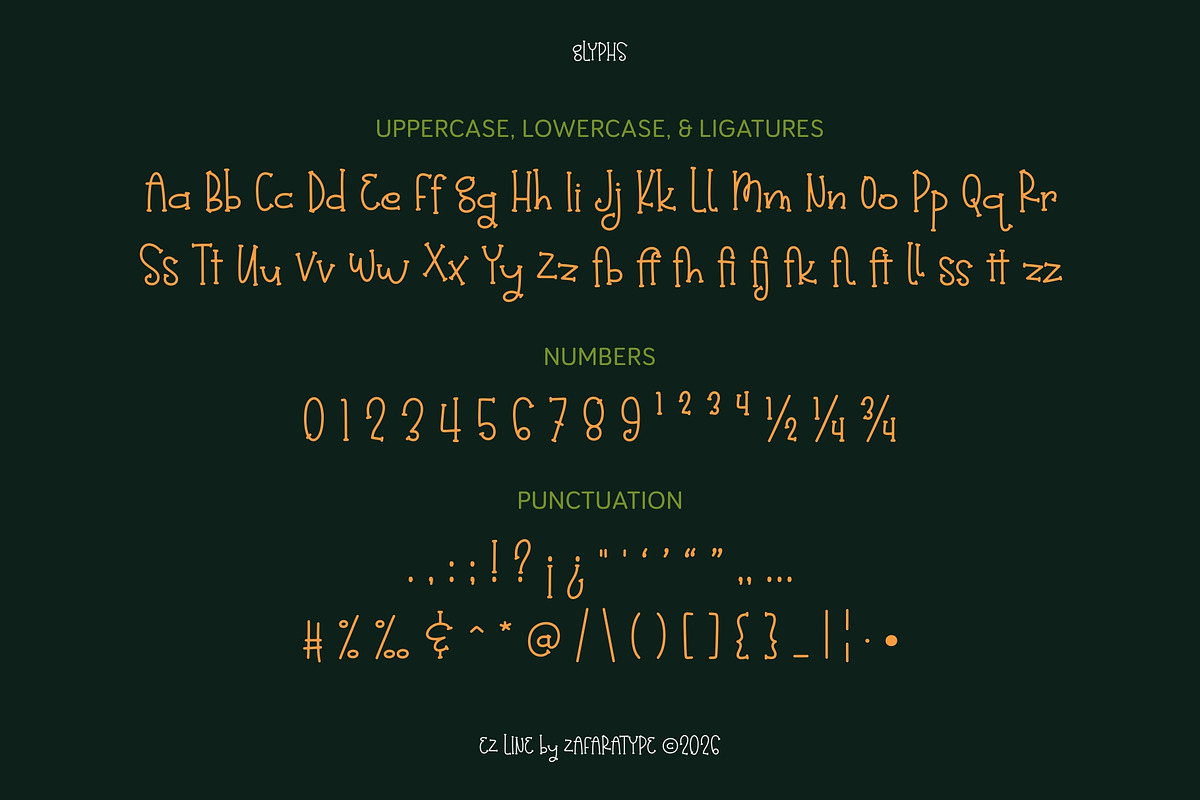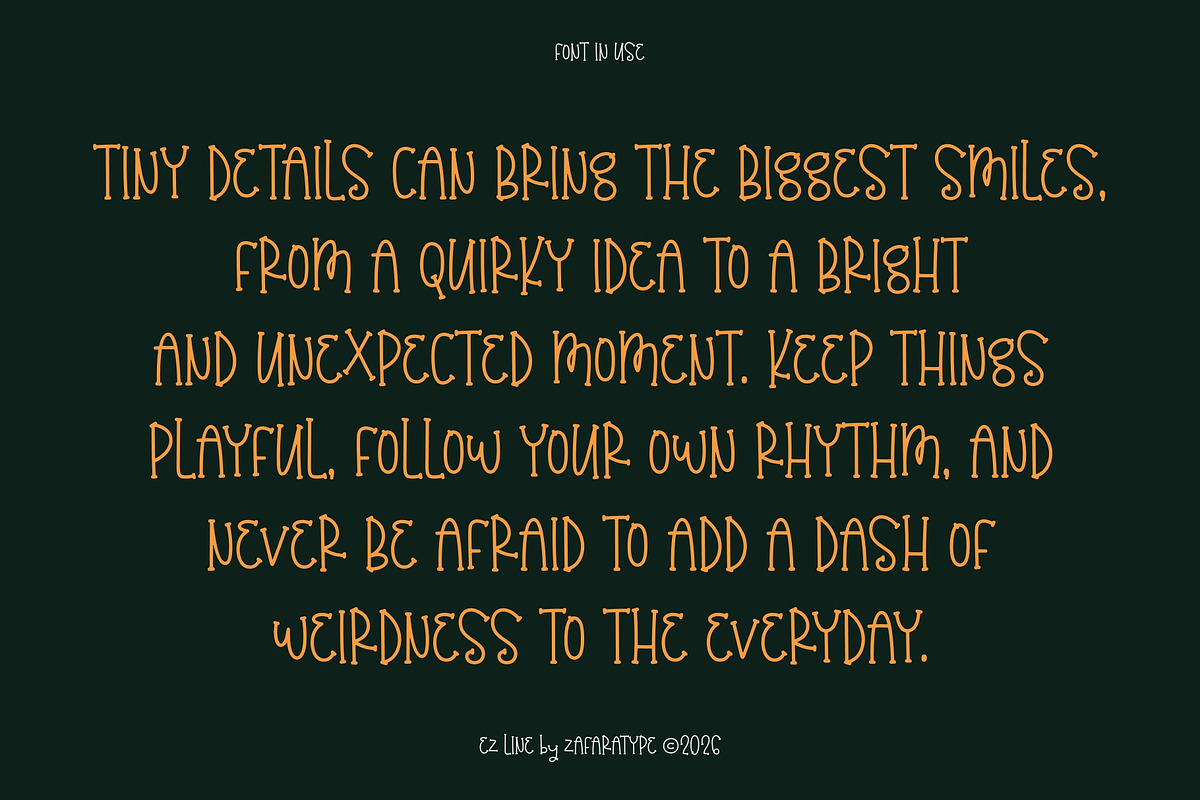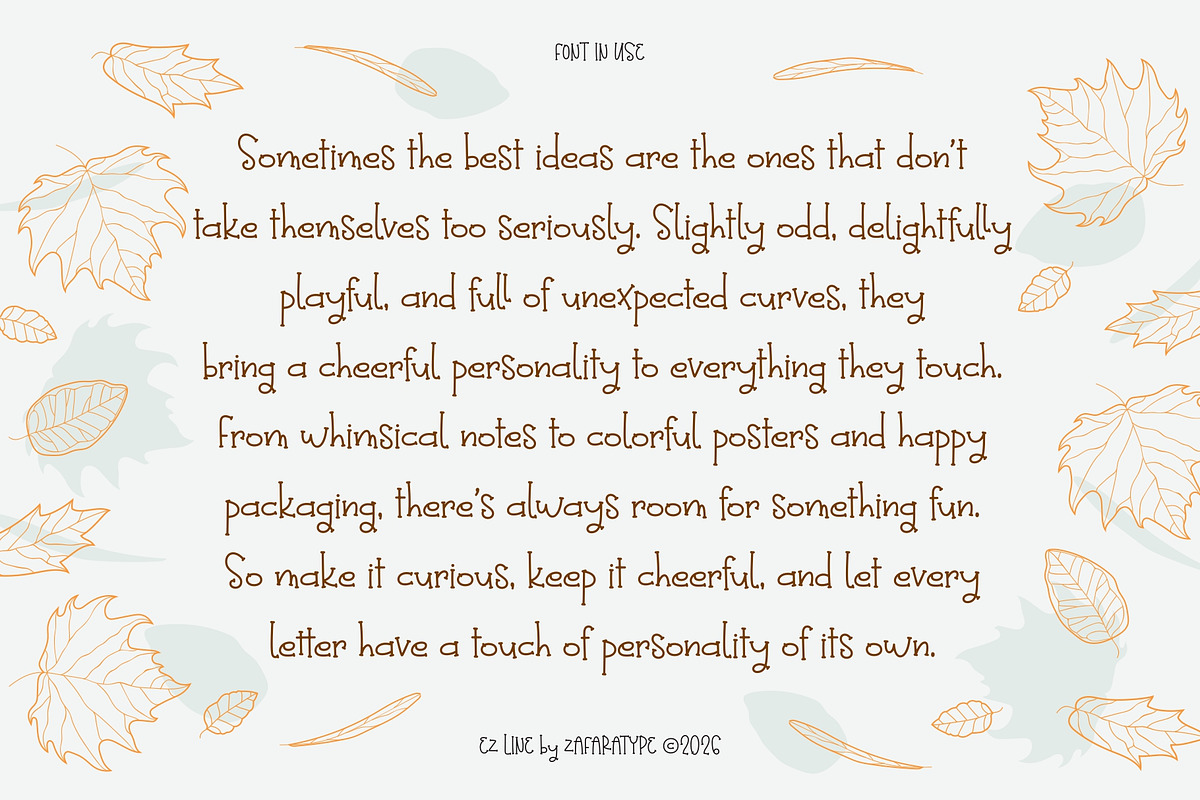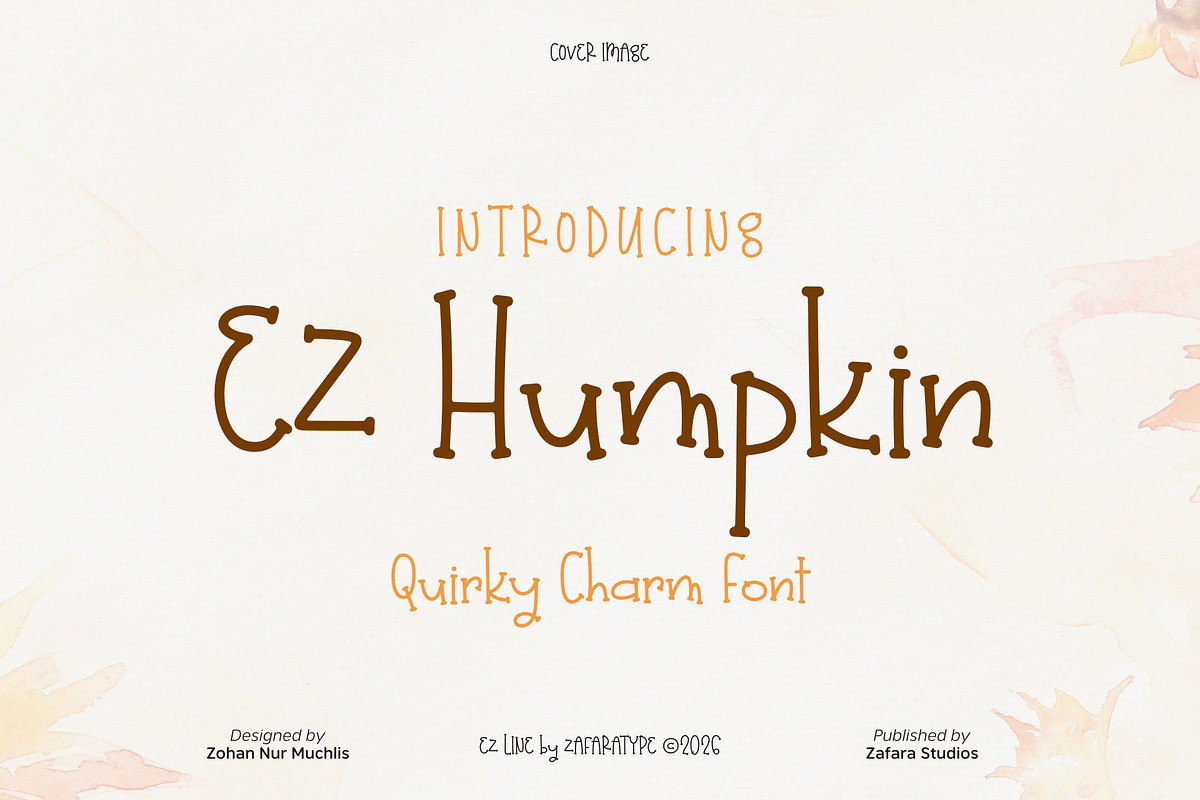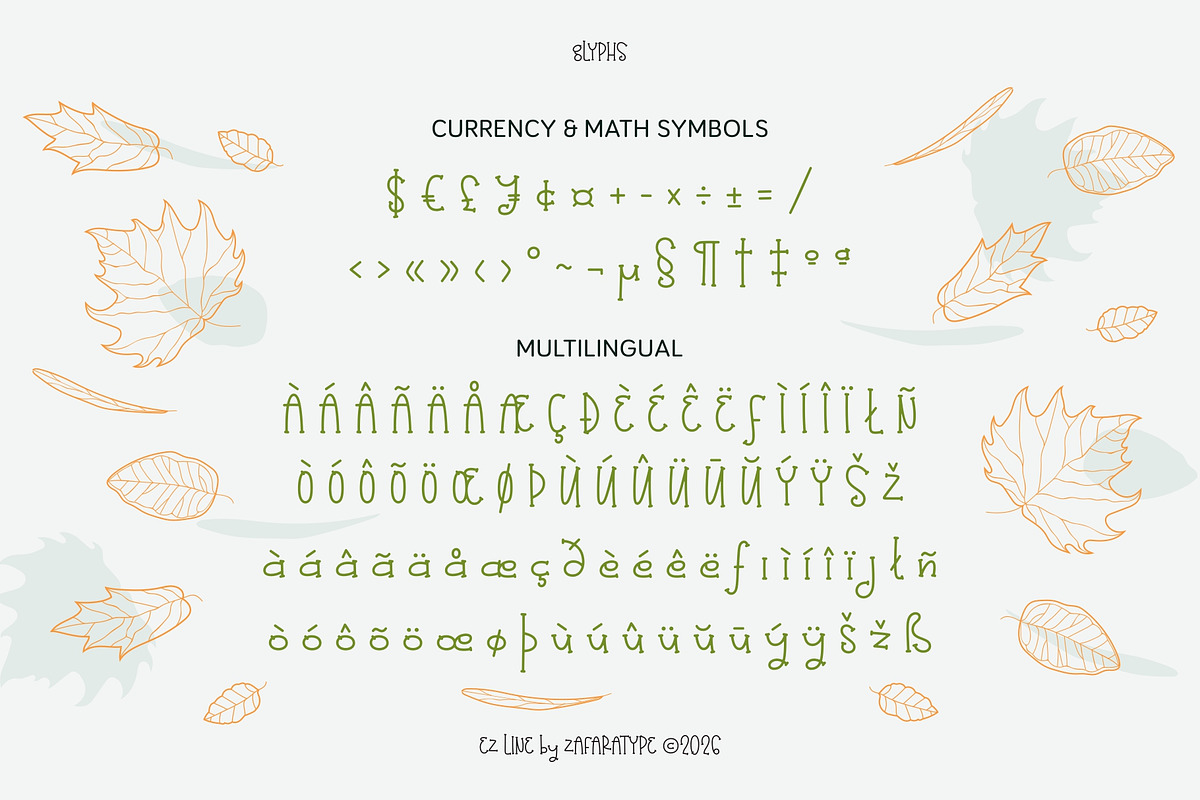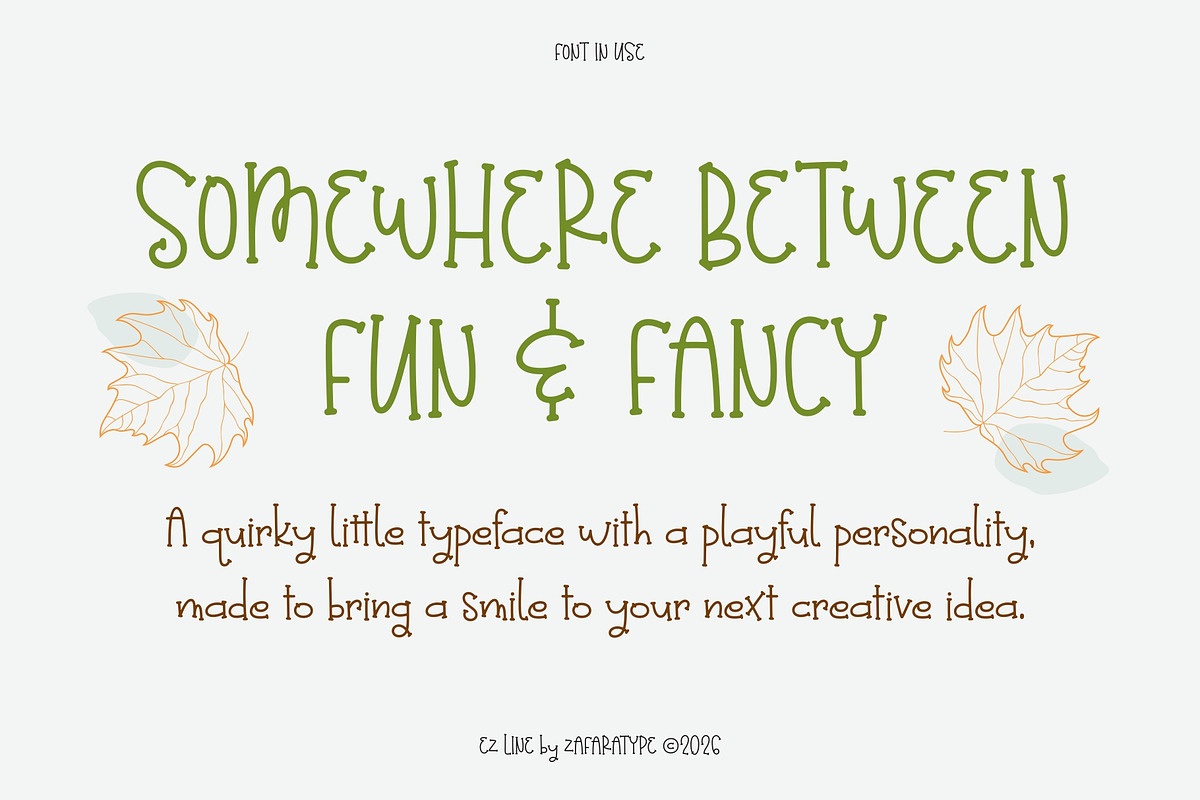
EZ Humpkin
EZ Humpkin is a quirky and playful handwritten display font that brings a cheerful personality through its wobbly shapes, rounded curves, and naturally irregular strokes. With its fun and expressive character, it feels casual, friendly, and slightly unexpected, giving every word a charming handmade touch.
Designed to feel imperfect in the best way, EZ Humpkin is perfect for branding, packaging, posters, greeting cards, children's projects, social media, invitations, stickers, labels, and creative stationery. Whether you're creating something colorful, cheerful, or a little bit quirky, it adds a warm and distinctive personality to every design.
255 glyphs: Uppercase, lowercase, ligatures, numbers & punctuation, symbols & accents, multilingual support
25 languages: Afrikaans, Albanian, Basque, Catalan, Danish, Dutch, English, Estonian, Faroese, Filipino, Finnish, French, Galician, German, Icelandic, Indonesian, Irish, Italian, Malay, Norwegian Bokmål, Portuguese, Spanish, Swahili, Swedish, Zulu